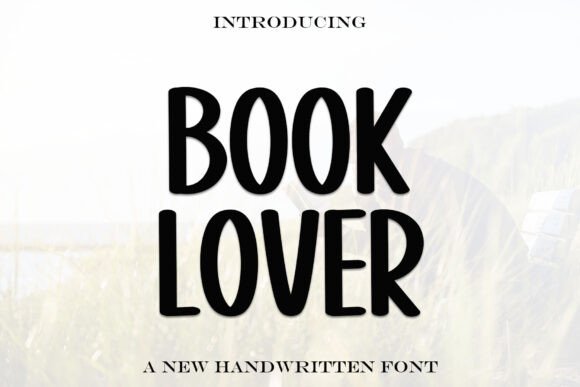
Book Lover Font: The Perfect Expression of Your Love for Reading
Are you a bookworm who loves to express your passion for reading? Do you want to add a personal touch to your book reviews, quotes, or literary-themed projects? Look no further than the Book Lover Font, a charming, handwritten font that embodies the warmth and coziness of reading.
What is Book Lover Font?
Book Lover is a beautiful, handwritten font designed to capture the essence of book love. Its soft, flowing letters are carefully crafted to convey a sense of warmth, comfort, and approachability. This font is perfect for anyone who wants to add a personal, cozy touch to their writing, whether it’s for a book blog, a reading journal, or a literary-themed craft project.
Key Features of Book Lover Font
- Handwritten style: Book Lover Font has a beautiful, handwritten style that gives your text a personal and intimate feel.
- Soft and flowing letters: The font’s soft, flowing letters are designed to evoke a sense of warmth and coziness, making it perfect for expressing love for books and reading.
- Inviting style: The font’s inviting style makes it perfect for book reviews, reading journals, and other literary-themed projects.
- Easy to read: Despite its handwritten style, Book Lover Font is easy to read, making it perfect for long texts and paragraphs.
Creative Ways to Use Book Lover Font
Book Lover Font is a versatile font that can be used in a variety of creative ways. Here are some ideas to get you started:
- Book reviews: Use Book Lover Font to write book reviews that are both personal and engaging.
- Reading journals: Add a personal touch to your reading journal with Book Lover Font.
- Literary-themed crafts: Use Book Lover Font to create literary-themed crafts, such as bookmarks, bookplates, and reading-themed art.
- Book blogs: Add a personal touch to your book blog with Book Lover Font.
- Social media posts: Use Book Lover Font to create engaging social media posts about your favorite books and authors.
Benefits of Using Book Lover Font
Using Book Lover Font can bring several benefits to your writing and creative projects. Here are some of the advantages of using this charming font:
- Personal touch: Book Lover Font adds a personal touch to your writing, making it more engaging and relatable.
- Emotional connection: The font’s warm and inviting style helps create an emotional connection with your readers.
- Unique style: Book Lover Font has a unique style that sets it apart from other fonts, making your writing and projects stand out.
Tips and Tricks for Using Book Lover Font
Here are some tips and tricks for using Book Lover Font effectively:
- Use it for headings and titles: Book Lover Font is perfect for headings and titles, adding a personal touch to your writing.
- Mix it with other fonts: Experiment with mixing Book Lover Font with other fonts to create a unique style.
- Adjust font size and color: Adjust the font size and color to suit your needs and create a visually appealing design.
- Use it for quotes and passages: Use Book Lover Font to highlight quotes and passages from your favorite books.
Book Lover Font is a charming, handwritten font that is perfect for expressing love for books and reading. Its soft, flowing letters make it perfect for adding a personal touch to your writing and creative projects. Whether you’re a book blogger, a reading journal enthusiast, or a literary-themed crafty person, Book Lover Font is a great choice. So why not give it a try and see how it can enhance your writing and projects?